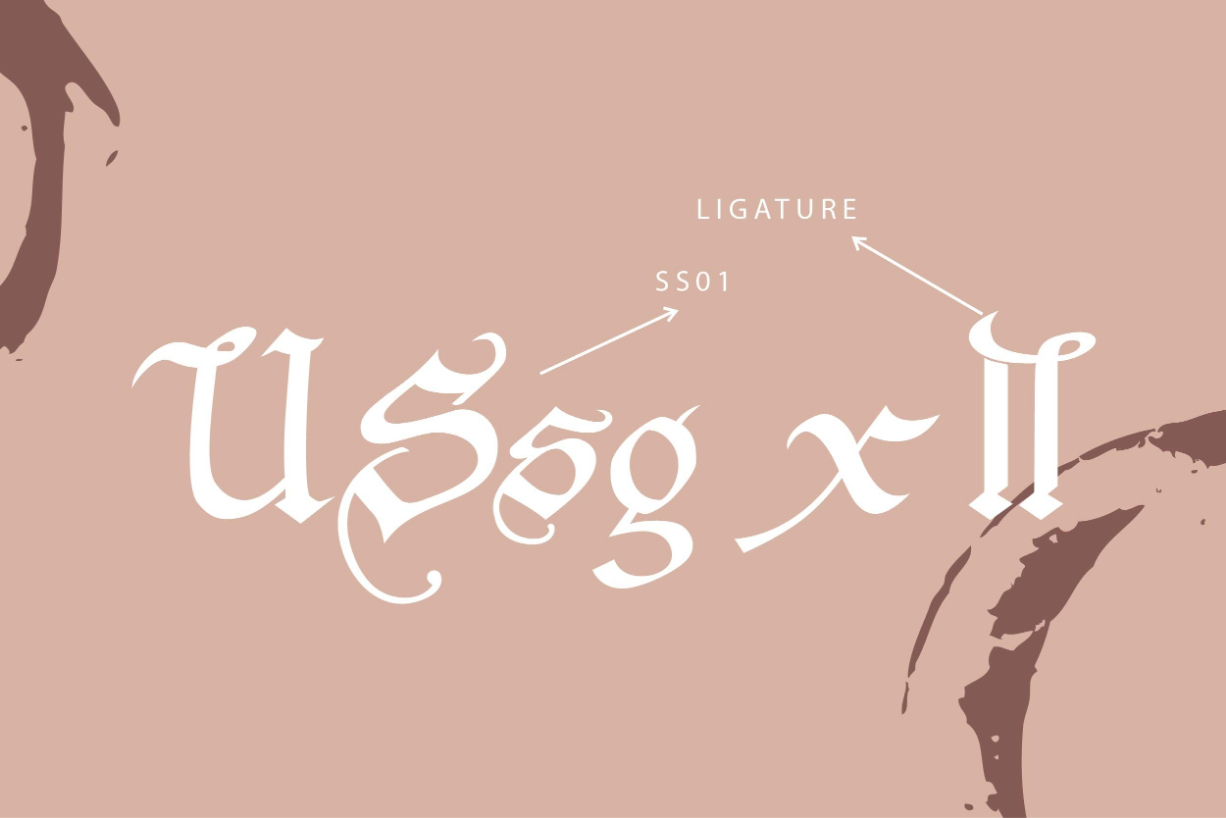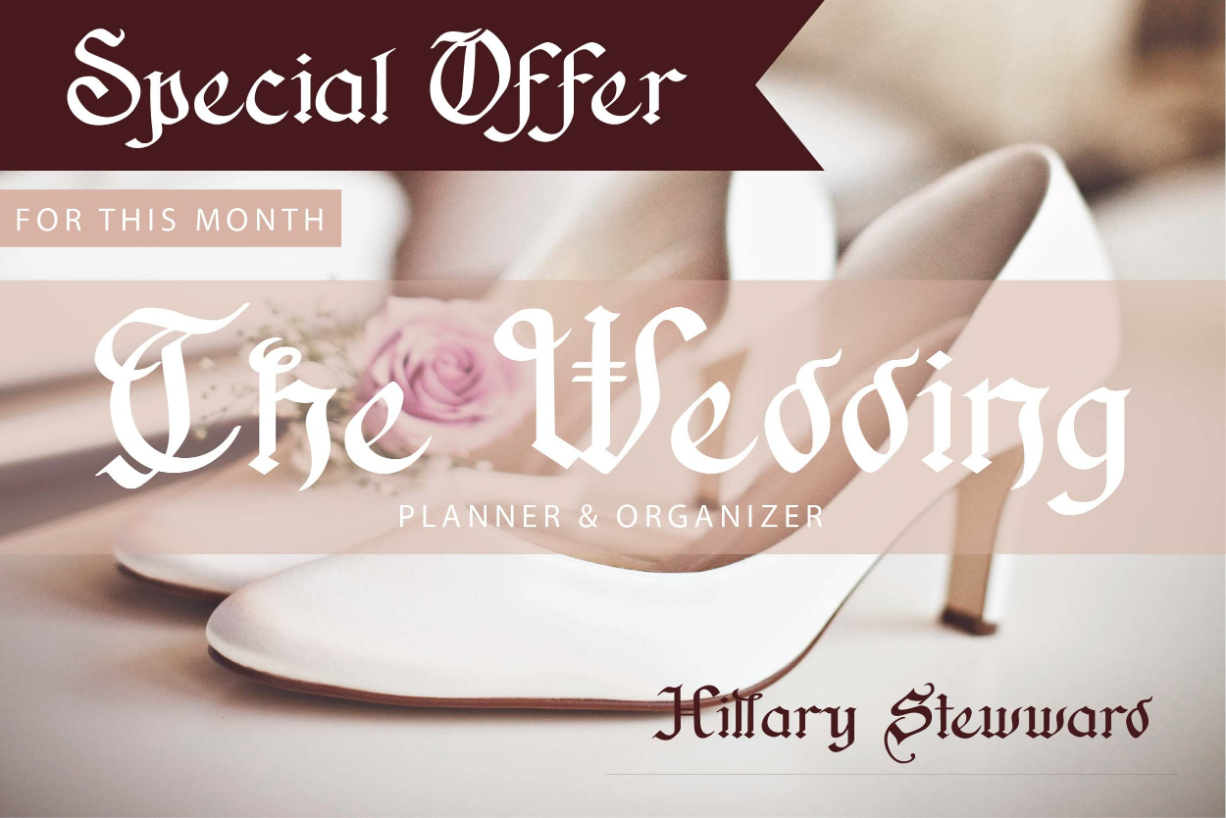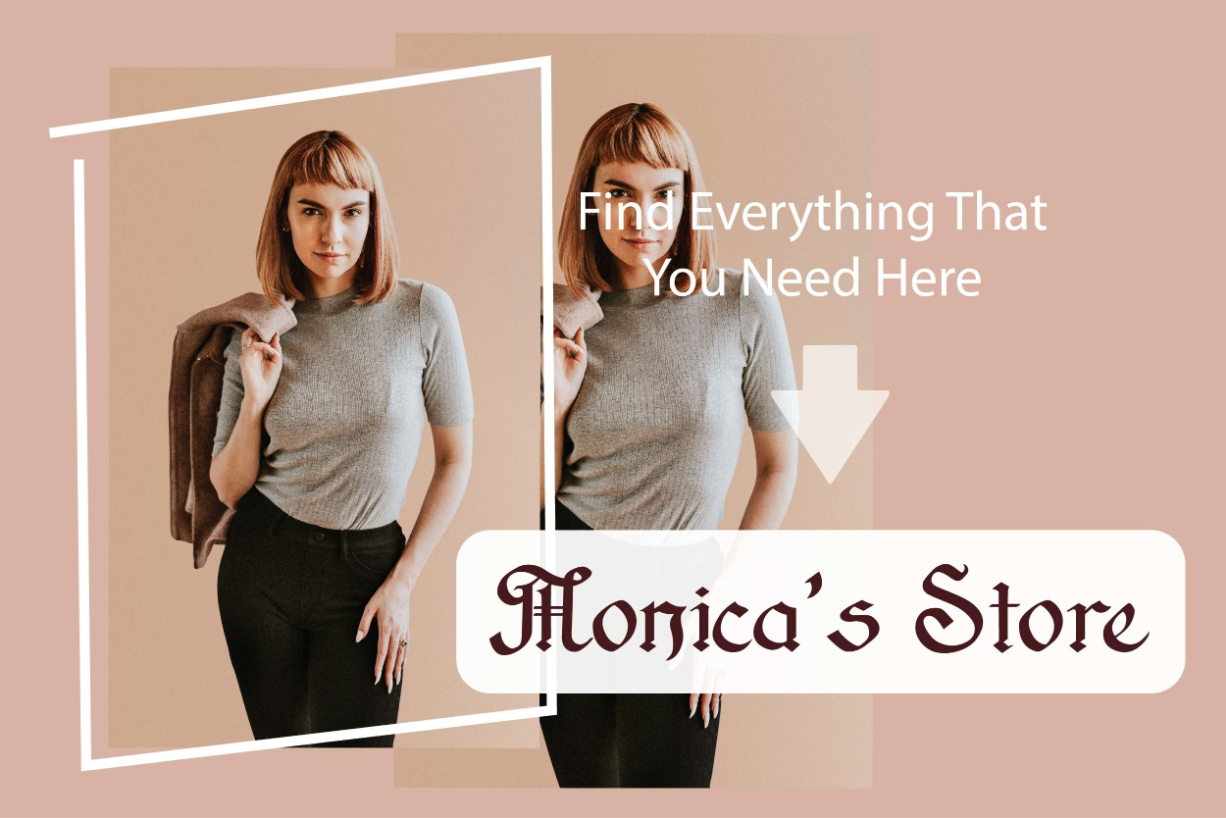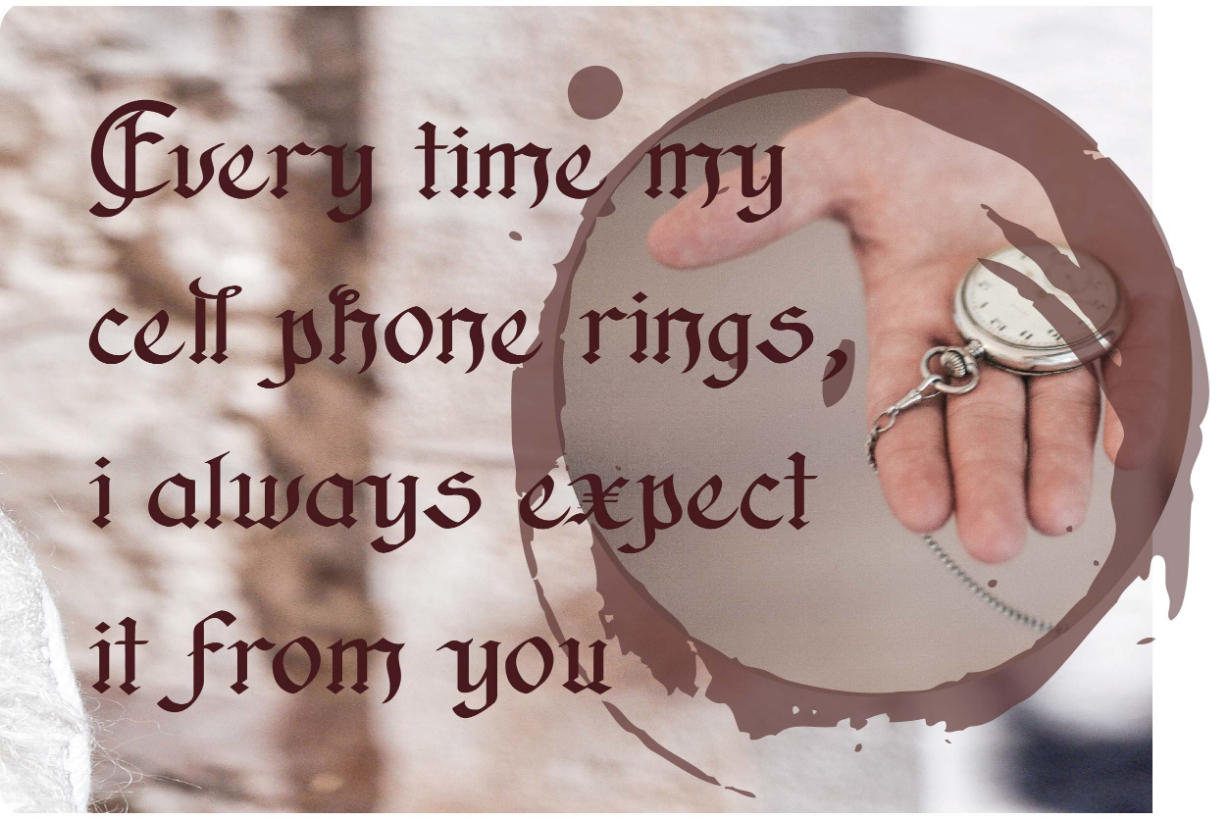
About Miguel Font
Miguel is a distinct, highly detailed and chic blackletter font. It is imposing and features uniquely shaped letters, and as a result, it will easily match a wide range of creations that require a distinct touch.